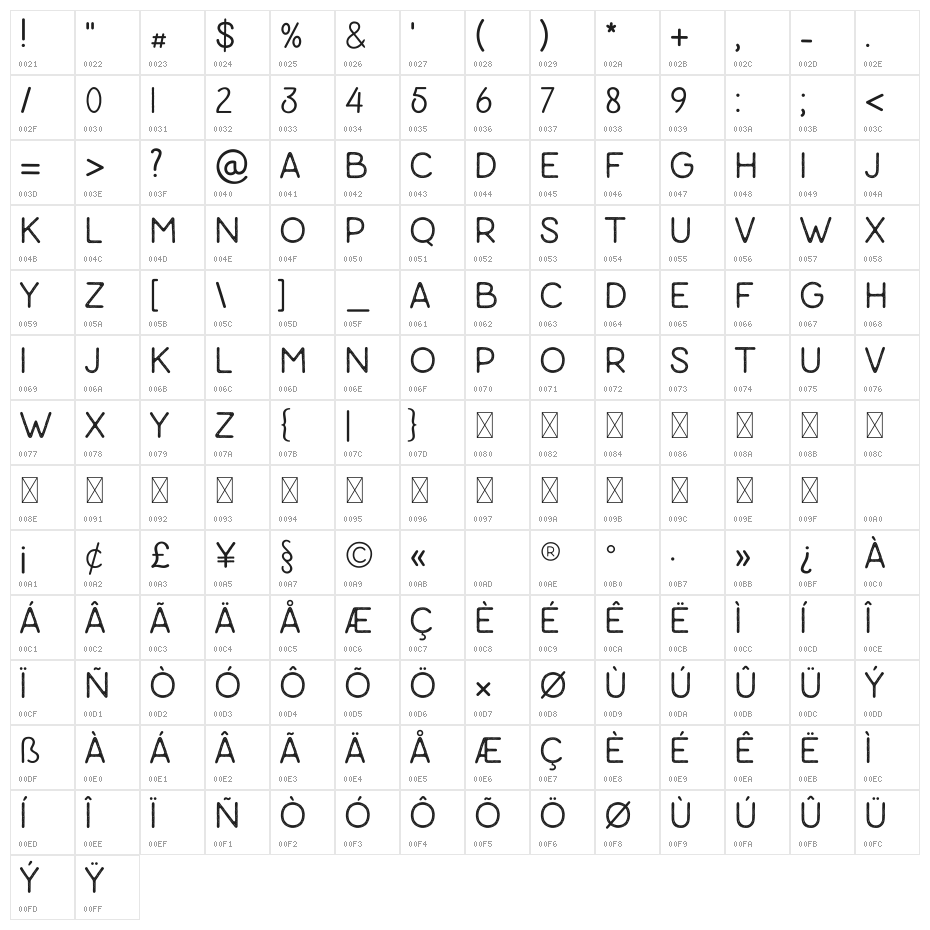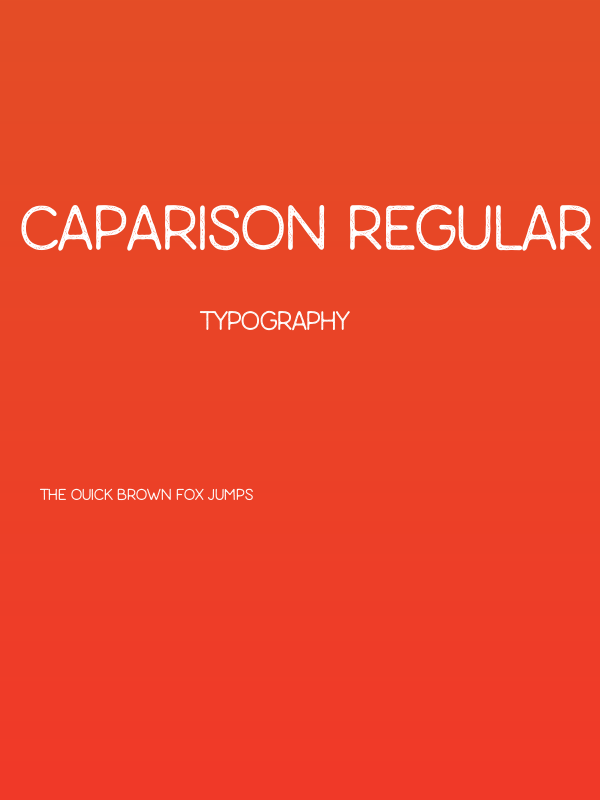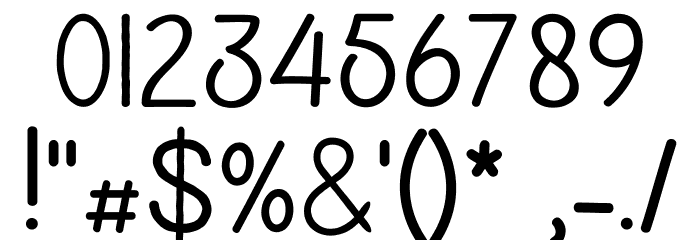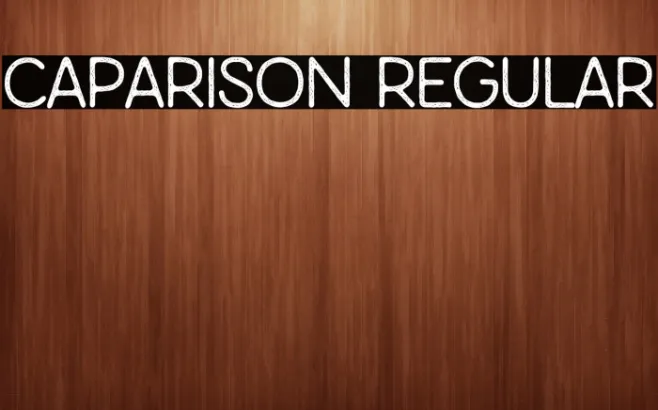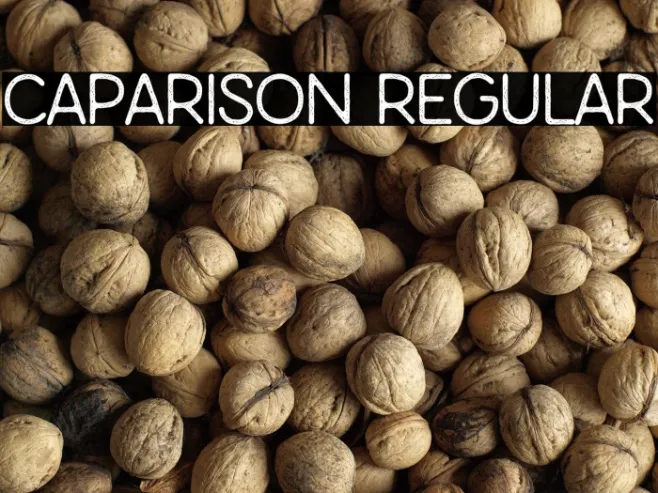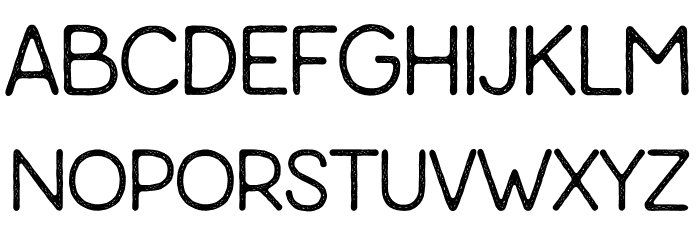
Caparison Regular Font
Caparison Regular Description
This font features a playful and textured style with a hand-drawn appearance. The characters are bold and slightly irregular, giving them a unique and informal look. The uppercase letters are consistent in height, while the lowercase letters maintain a similar width, ensuring readability. The numbers and special characters follow the same design, adding to the cohesive feel of the font. The texture within each character adds depth and interest, making it suitable for creative and artistic projects.
| Overall Style | Playful and Artistic |
| Use Case | Headlines, Posters, Creative Branding |
| Proposed Projects | Ideal for children's books, creative posters, and artistic branding materials. |